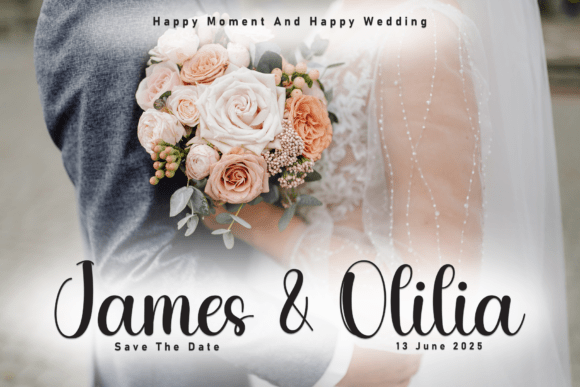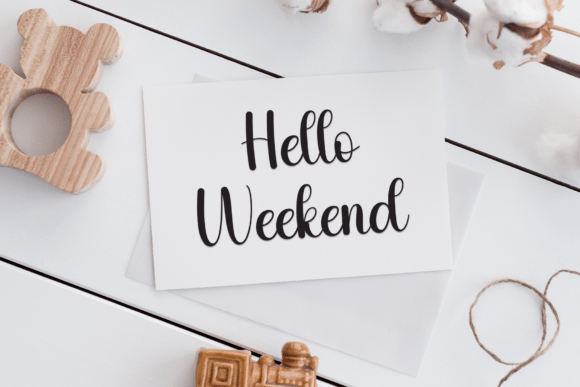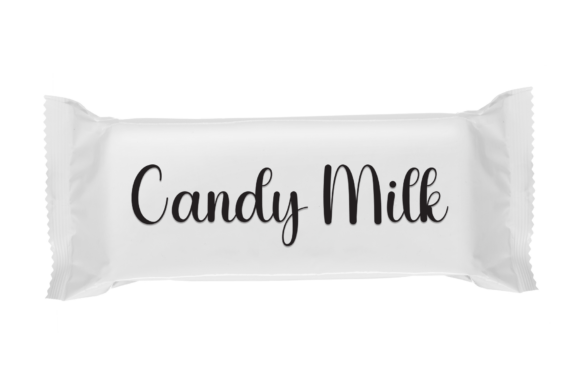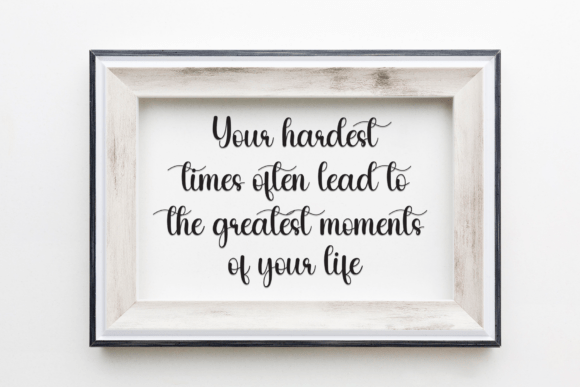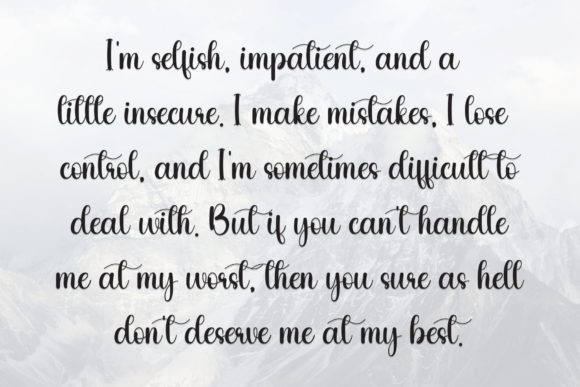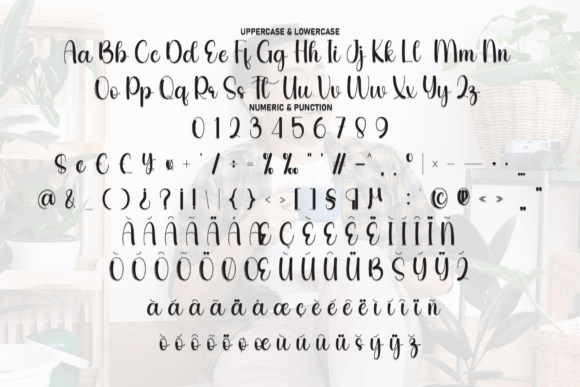
Introducing Daily Life Font: The Perfect Blend of Charm and Sweetness
Are you looking for a font that can add a touch of magic to your design projects? Look no further than Daily Life Font, a beautifully crafted script font that radiates a magnetic blend of charm and sweetness. This stunning typeface is perfect for designers and crafters who want to create intricate and eye-catching designs that leave a lasting impression.
The Perfect Fit for Wedding Invitations and Personalized Cards
Daily Life Font is specifically designed to flourish in wedding invitations, personalized cards, and other special occasion designs. Its elegant and cursive strokes evoke a sense of romance and sophistication, making it the perfect fit for couples who want to make their wedding invitations or save-the-date cards truly unforgettable. Whether you’re a designer or a crafter, this font is sure to impress your clients or loved ones with its beautiful and unique style.
A Jubilant and Enthralling Aura for Any Design Project
But Daily Life Font is not just limited to wedding invitations and personalized cards. Its cute and effervescent quality makes it a versatile font that can be used in a wide range of design projects, from branding and packaging to social media graphics and blog posts. This font has the power to transform any design project into a visually stunning and engaging experience that captivates audiences and leaves a lasting impression.
Clear Legibility and a Sprinkle of Delight
One of the standout features of Daily Life Font is its clear legibility, which ensures that your textual content is easy to read and understand. But what really sets this font apart is its ability to infuse a sprinkle of delight into your designs. Its playful and charming strokes add a touch of whimsy and fun to any design project, making it perfect for designers and crafters who want to create engaging and memorable experiences.
Amplify Your Creative Voyage with Daily Life Font
If you’re looking to amplify your creative voyage and take your design projects to the next level, Daily Life Font is the perfect choice. This blissfully captivating character set is designed to inspire creativity and imagination, making it perfect for designers and crafters who want to push the boundaries of what’s possible. With Daily Life Font, you can create designs that are not only visually stunning but also engaging, memorable, and shareable.
Key Features of Daily Life Font
- Beautifully crafted script font with a magnetic blend of charm and sweetness
- Perfect for wedding invitations, personalized cards, and other special occasion designs
- Cute and effervescent quality that adds a touch of whimsy and fun to any design project
- Clear legibility that ensures textual content is easy to read and understand
- Versatile font that can be used in a wide range of design projects
- Designed to inspire creativity and imagination
Tips for Using Daily Life Font
Here are some tips for using Daily Life Font in your design projects:
- Use it for headings and titles to add a touch of elegance and sophistication
- Pair it with a sans-serif font for a modern and clean look
- Use it for body text to create a more playful and engaging reading experience
- Don’t be afraid to get creative and try new things – Daily Life Font is designed to inspire imagination and creativity!
In conclusion, Daily Life Font is a beautifully crafted script font that radiates a magnetic blend of charm and sweetness. Its perfect blend of elegance and playfulness makes it the perfect fit for wedding invitations, personalized cards, and other special occasion designs. But it’s not just limited to these uses – its versatility and clear legibility make it a great choice for a wide range of design projects. So why not give Daily Life Font a try and experience the captivating charm of this amazing font for yourself?